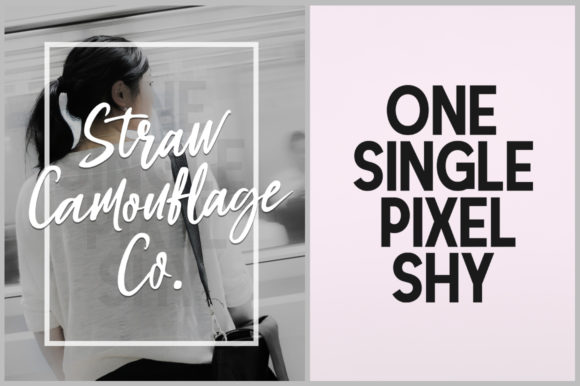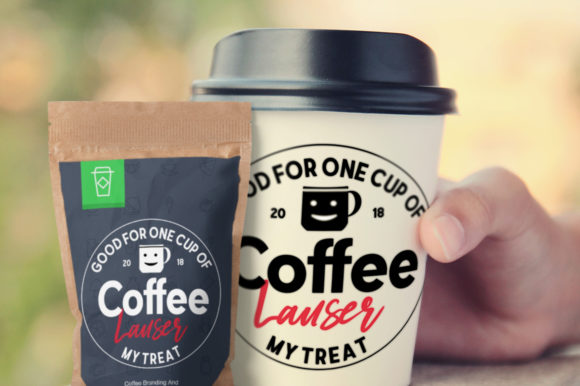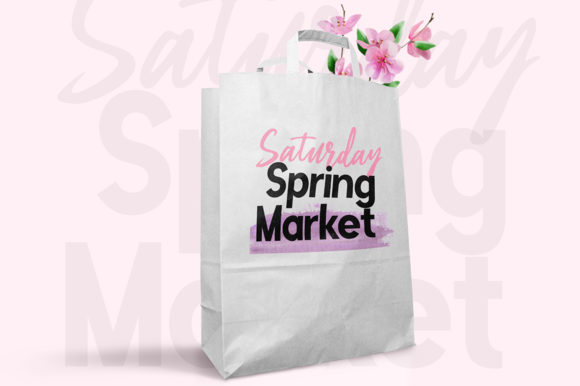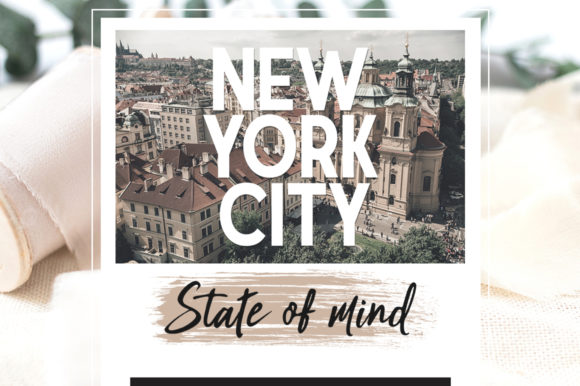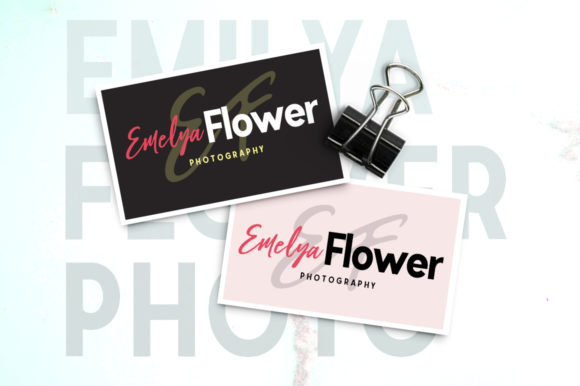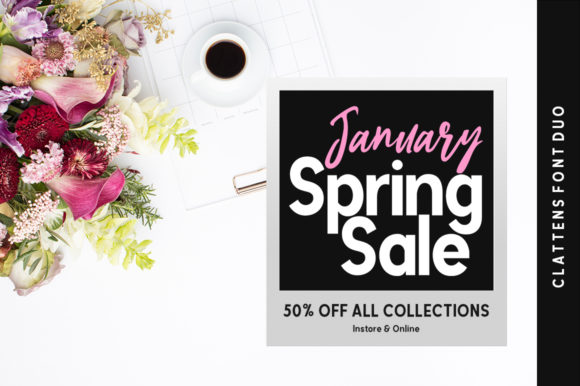
Introduction to Clattens Duo Font
Remember the rush of excitement when you stumble upon the perfect design element that elevates your creative project to the next level? For designers, it’s a moment that can make all the difference between a good design and a great one. And, for those who crave a unique look, the Clattens Duo Font is just the thing to spark that magic.
This modern font duo combines the bold, heavy sans serif with the carefree charm of a brush script, offering an unbeatable combination for adding a striking and eye-catching element to your designs. Whether you’re working on a high-quality logo, brochure, or social media campaign, the Clattens Duo Font is an invaluable resource that’s sure to set you apart from the crowd.
Key Features of Clattens Duo Font
- Unique and creative design perfect for various creative projects and designs.
- Comes in two distinct styles (Duo) with a transparent background, allowing for versatile usage.
- Perfect for designers, artists, and creatives looking for a distinctive and high-quality font for their projects.
- Easy to use and customize, making it an ideal choice for a wide range of creative applications.
Honest Review: Clattens Duo Font
As a designer, I’m always on the lookout for high-quality fonts that can elevate my creative projects. Recently, I stumbled upon the Clattens Duo Font, and I was excited to give it a try.
One of the things that works well about this font is its unique, dual-face design. The contrast between the bold and thin weights is striking, and it adds a lot of visual interest to any design. ✨ The font also comes with a transparent background, making it easy to use on any background image or color. ✨
Here are some of the key features that make Clattens Duo Font a great design resource:
- Unique dual-face design
- High-quality typography
That being said, I do have a few limitations to mention. ⚠️ The font is only available in a limited range of weights, which may not be ideal for more complex designs. Additionally, the font’s bold weight can be a bit too bold for some applications. ⚠️
Overall, I’m impressed with the Clattens Duo Font, and I would definitely recommend it to designers looking for a high-quality, free font to add to their design arsenal. Just be mindful of the limitations, and you’ll be golden!
To get the most out of Clattens Duo Font, use it in conjunction with other design elements to create a visually appealing design. Experiment with different font sizes, colors, and styles to find the perfect combination for your project.
Common Use Cases for Clattens Duo Font
Clattens Duo Font is a versatile font that can be used in a variety of creative projects, including logos, business cards, and website headers. Its high-quality design makes it a great choice for any project that requires a professional look.